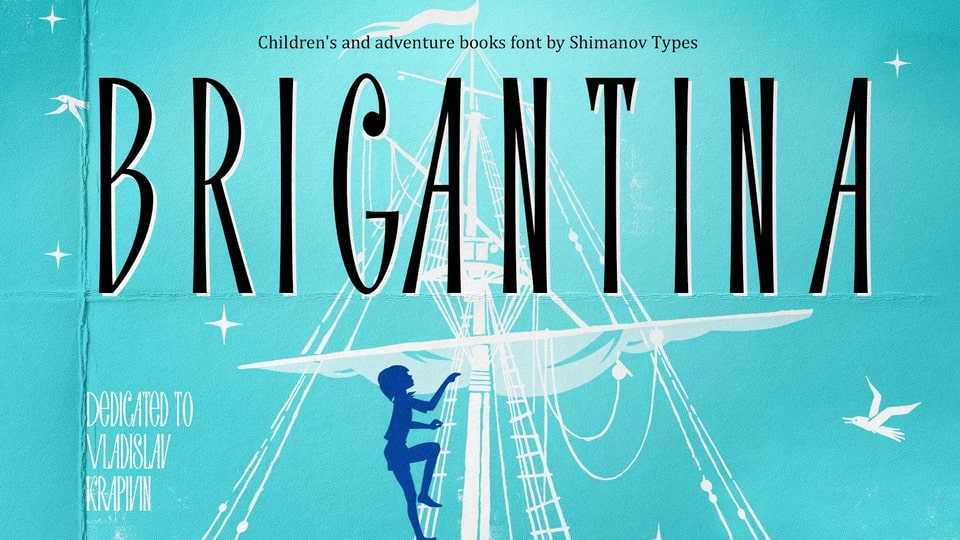
Download ST-Brigantina font, a serif typeface dedicated to great Soviet children’s book writer Vladislav Krapivin. ST-Brigantina created for titles, poster design, web design, branding and packaging works, illustrations, badges and other typography works.